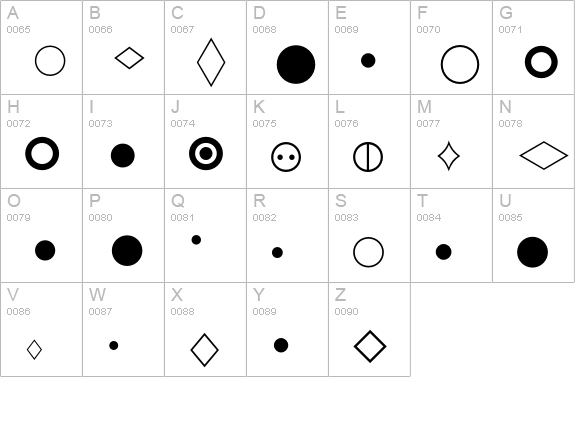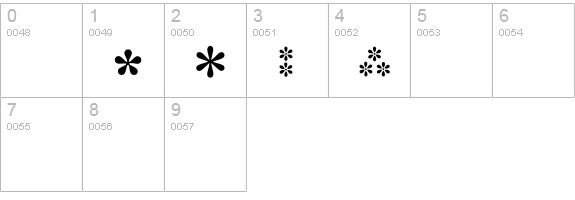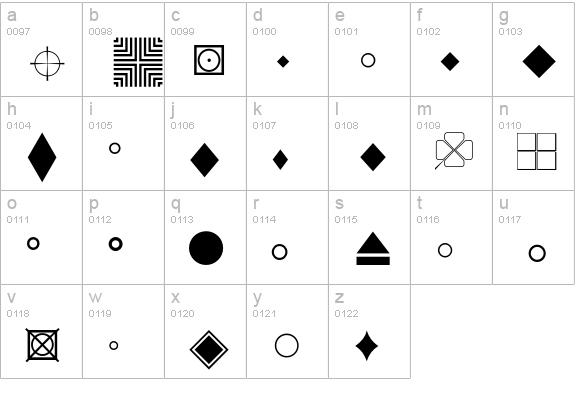
GeneralSymbolsP05 Font Details
GeneralSymbolsP05 font is a versatile and stylish typeface that offers a wide range of symbols and icons for your design needs. With a sleek and modern design, this font is perfect for adding a touch of sophistication to your projects. Whether you are designing a website, creating a poster, or working on a presentation, GeneralSymbolsP05 font has got you covered. The font features a variety of symbols, making it ideal for a wide range of applications. From arrows and geometric shapes to technology icons and decorative elements, GeneralSymbolsP05 font provides endless possibilities for creative expression. With its clean lines and well-crafted glyphs, this font is sure to make your designs stand out. What's even better is that GeneralSymbolsP05 font is completely free to download at FontsMarket.com. This means that you can easily access this high-quality font without having to spend a dime. So why wait? Give your designs a professional edge with GeneralSymbolsP05 font today!